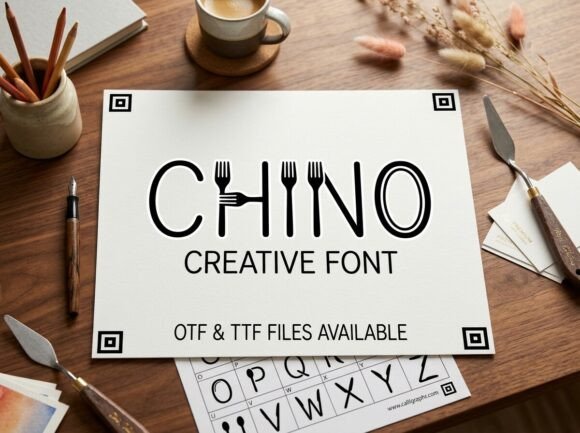
Introducing Chino Font: A Stunning Decorative Display Font
Are you tired of using the same old fonts for your designs? Do you want to make a statement and stand out from the crowd? Look no further than Chino Font, a unique and artistic decorative display font that’s sure to turn heads. In this article, we’ll take a closer look at what makes Chino Font so special and why it’s a must-have for designers and crafters.
Chino Font is a stunning decorative display font designed to be the center of attention. With its unique artistic elements and strong visual personality, this font is perfect for creators who want to break away from the ordinary. Whether you’re working on a bold headline, artistic logo, or creative packaging, Chino Font is versatile enough to make a lasting impression while maintaining a professional and polished finish.
⚠️ IMPORTANT NOTE BEFORE PURCHASE: Chino Font is an ALL-CAPS (Uppercase Only) display typeface. This means that it does not include lowercase letters. It is specifically designed for high-impact headlines, logos, and decorative initials where every letter is a work of art.
This unique feature is what sets Chino Font apart from other fonts. The all-caps design allows for maximum visual impact, making it perfect for titles, headings, and other attention-grabbing elements.
Use Cases for Chino Font
So, how can you use Chino Font in your design projects? Here are a few ideas to get you started:
• Headlines and Titles: Use Chino Font to create bold and eye-catching headlines that demand attention.
• Logos and Branding: Create a unique and memorable logo for your brand using Chino Font’s artistic and decorative elements.
• Packaging Design: Add a touch of elegance and sophistication to your packaging designs with Chino Font.
• Signage and Advertising: Use Chino Font to create eye-catching signs and advertisements that grab attention.
Why Choose Chino Font?
With so many fonts available, why choose Chino Font? Here are just a few reasons:
• Unique and Artistic: Chino Font offers a unique and artistic design that’s sure to stand out from the crowd.
• Versatile: This font is versatile enough to be used in a variety of design projects, from headlines and logos to packaging and signage.
• Professional and Polished: Despite its bold and artistic design, Chino Font maintains a professional and polished finish.
Font Name Chino Font
Author kulturrno